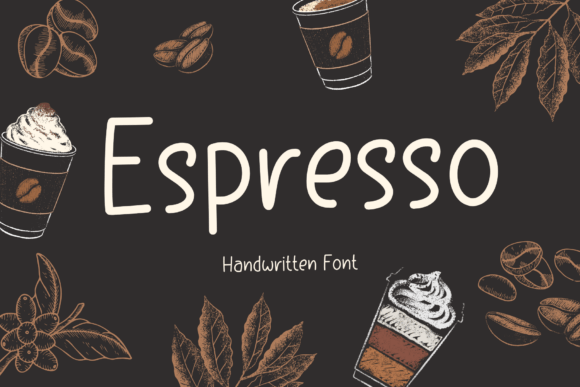
The Perfect Brew for Your Design
There’s nothing quite like the feeling of finding the perfect font for your project. It’s like stumbling upon a hidden gem in a bustling café – you can’t help but feel a sense of excitement and anticipation. And for designers, the search for that elusive font can be a thrilling adventure. Imagine you’re working on a new branding project, and you need a font that captures the essence of your client’s personality. That’s where the Espresso Font comes in – a charming, handwritten font that’s sure to bring your designs to life.
| 👤 Author | Brown Cupple Fonts |
With its playful and authentic vibe, the Espresso Font is the perfect choice for a wide range of projects, from blog posts and logos to invitations and greeting cards. Its versatility and charm make it a valuable addition to any designer’s toolkit, and its ability to add a personal touch to your designs is unmatched.
Espresso Font Key Features
- Unique Characteristics: Espresso Font features a unique blend of modern and traditional design elements, including geometric shapes, elegant lines, and subtle texture, making it a versatile choice for various design projects.
- Language Support: Espresso Font includes comprehensive language support, covering a wide range of languages, including Latin, Cyrillic, and Greek scripts, making it an ideal choice for global design applications.
- Character Count: Espresso Font contains over 500 characters, including uppercase and lowercase letters, numerals, punctuation marks, and special characters, ensuring that designers have a comprehensive set of characters to work with.
Espresso Font Review
As a designer, I was excited to dive into the Espresso Font and see what it had to offer. Here’s my honest review.
- Unique and modern design: Espresso Font has a distinctive look that sets it apart from more traditional fonts. I love the way it adds a touch of sophistication to any design project.
- Good legibility: Despite its modern design, Espresso Font is still highly legible, making it perfect for body text or headings.
- Wide range of styles: The font comes in a variety of styles, from bold to light, which gives designers plenty of flexibility when it comes to choosing the perfect look for their project.
- Limited character set: While the font is great for most design projects, it’s not ideal for projects that require a wide range of special characters or languages.
- Not ideal for small text: Due to its modern design, Espresso Font can be difficult to read in small sizes, making it less than ideal for projects where text will be tiny.
Overall, I think Espresso Font is a solid choice for designers who are looking for a modern, unique font. While it has some limitations, its strengths far outweigh its weaknesses. I’d definitely recommend it for projects where you want to add a touch of sophistication and style.
The Espresso Font is ideal for:
- Coffee shop logos
- Restaurant menus
- Food photography captions
Q: Does Espresso Font include any special features or glyphs?
Yes, Espresso Font includes a range of special features and glyphs, including ligatures, swashes, and ornaments. It also includes a comprehensive set of language-specific glyphs, making it suitable for use in a wide range of languages and cultural contexts.